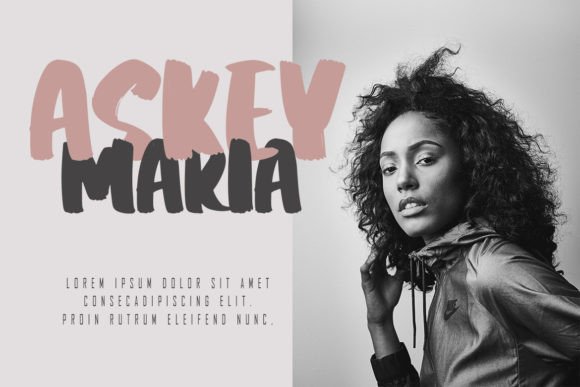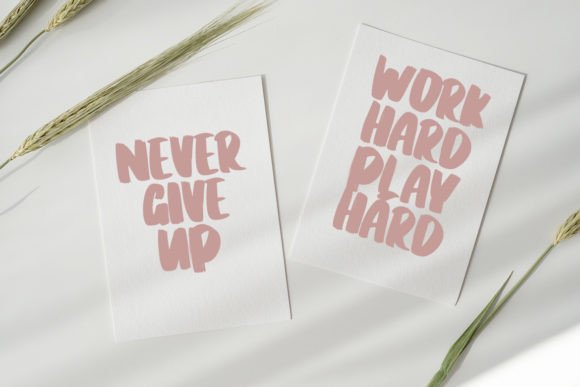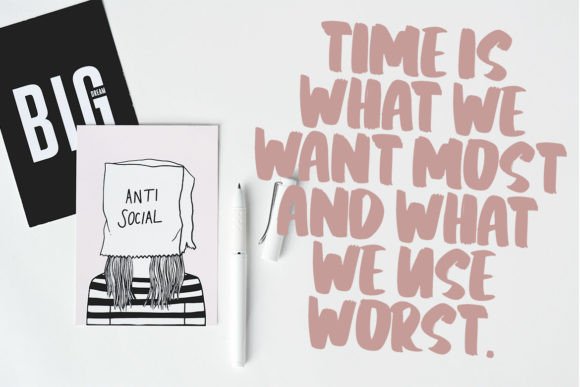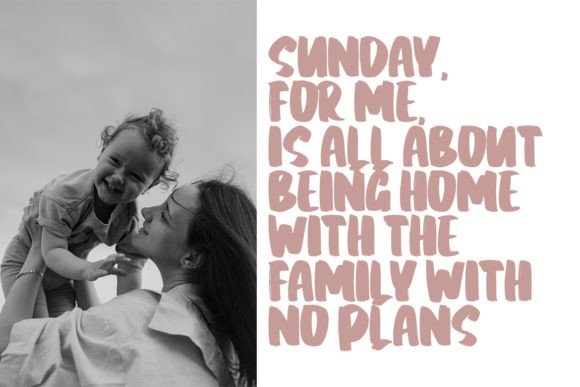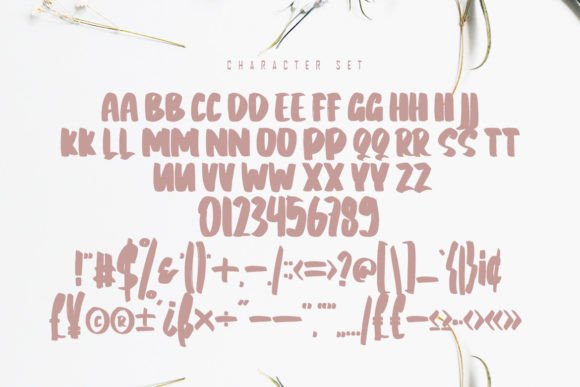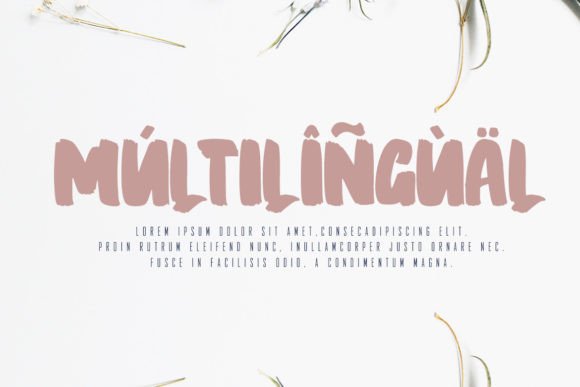
Introduction to Marrie Font
Make a statement with the Marrie handwritten font – a confident and playful script font with a bold, in-your-face style.
Perfect for adding personality and character to your designs, this font will bring fun and liveliness to your projects Be bold, be unique, and be you with this font.
Key Features of Marrie Font
Why Choose Marrie Font?
Marrie Font offers exceptional quality and versatility, making it a valuable addition to your design toolkit. Whether you’re creating for personal projects or commercial use, Marrie Font delivers professional results.